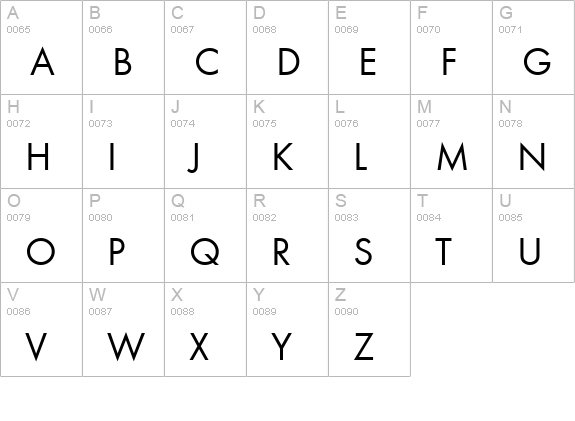
FuturaTEE Font Details
FuturaTEE font is a modern and sleek typeface that combines clean lines with a timeless elegance. Its balanced proportions and geometric shapes make it an ideal choice for a wide range of design projects, from branding to editorial layouts. The versatility of FuturaTEE allows it to be used in both headlines and body text, ensuring a cohesive and polished look. What sets FuturaTEE apart is not only its aesthetic appeal but also its accessibility. This font is available for free download at FontsMarket.com, making it easily accessible to designers and creatives looking to enhance their projects without breaking the bank. With FuturaTEE, you can add a touch of sophistication to your designs while staying within budget.